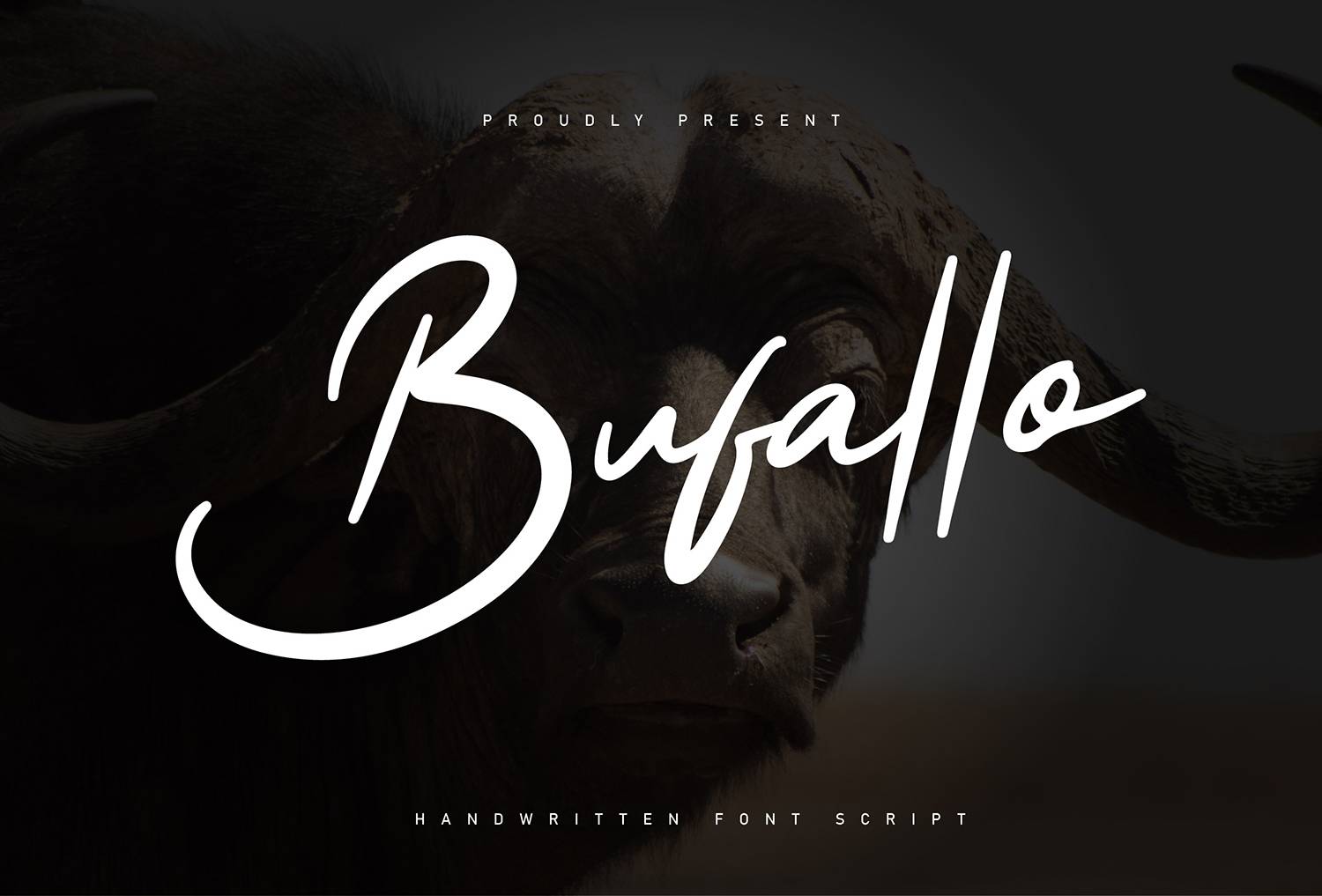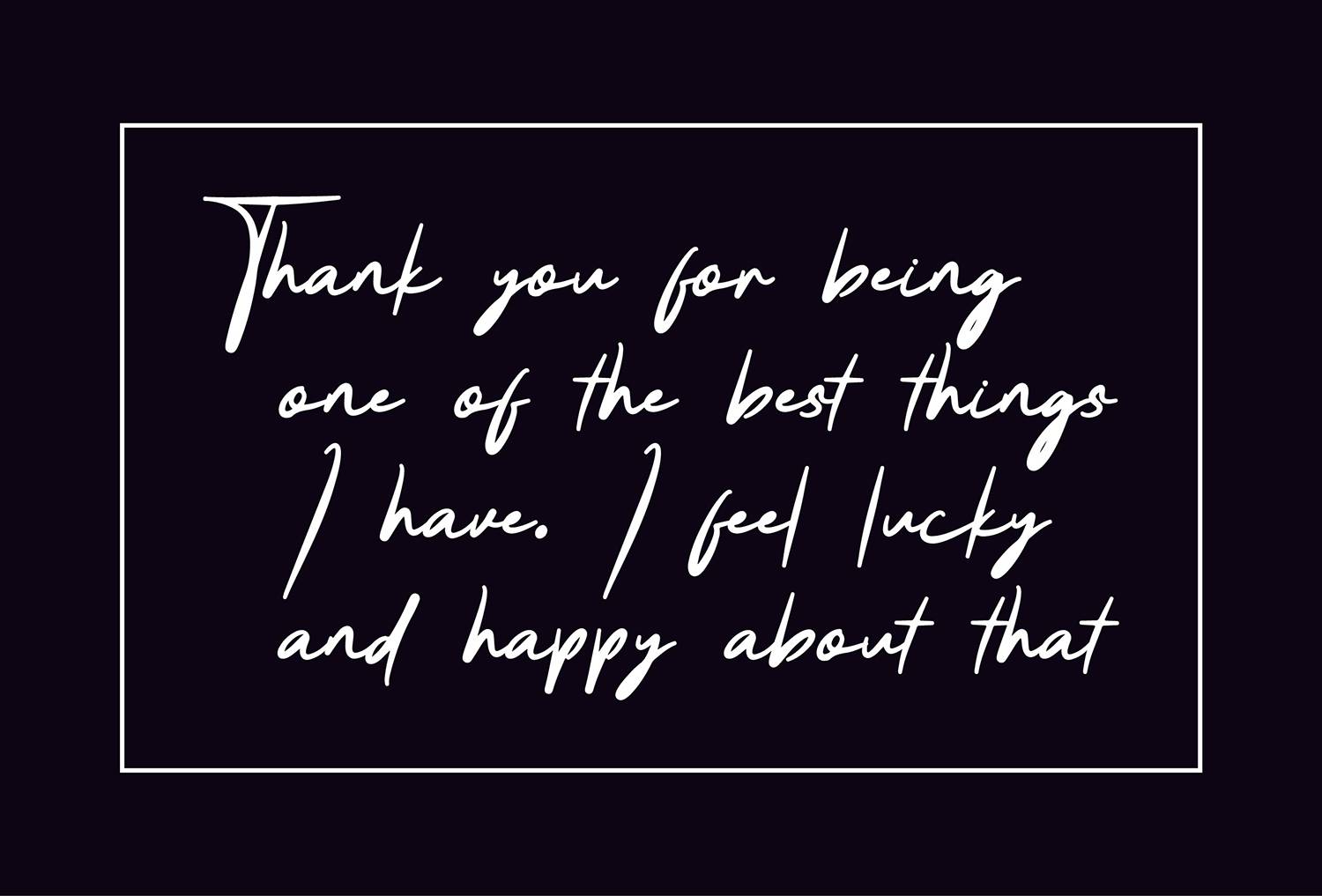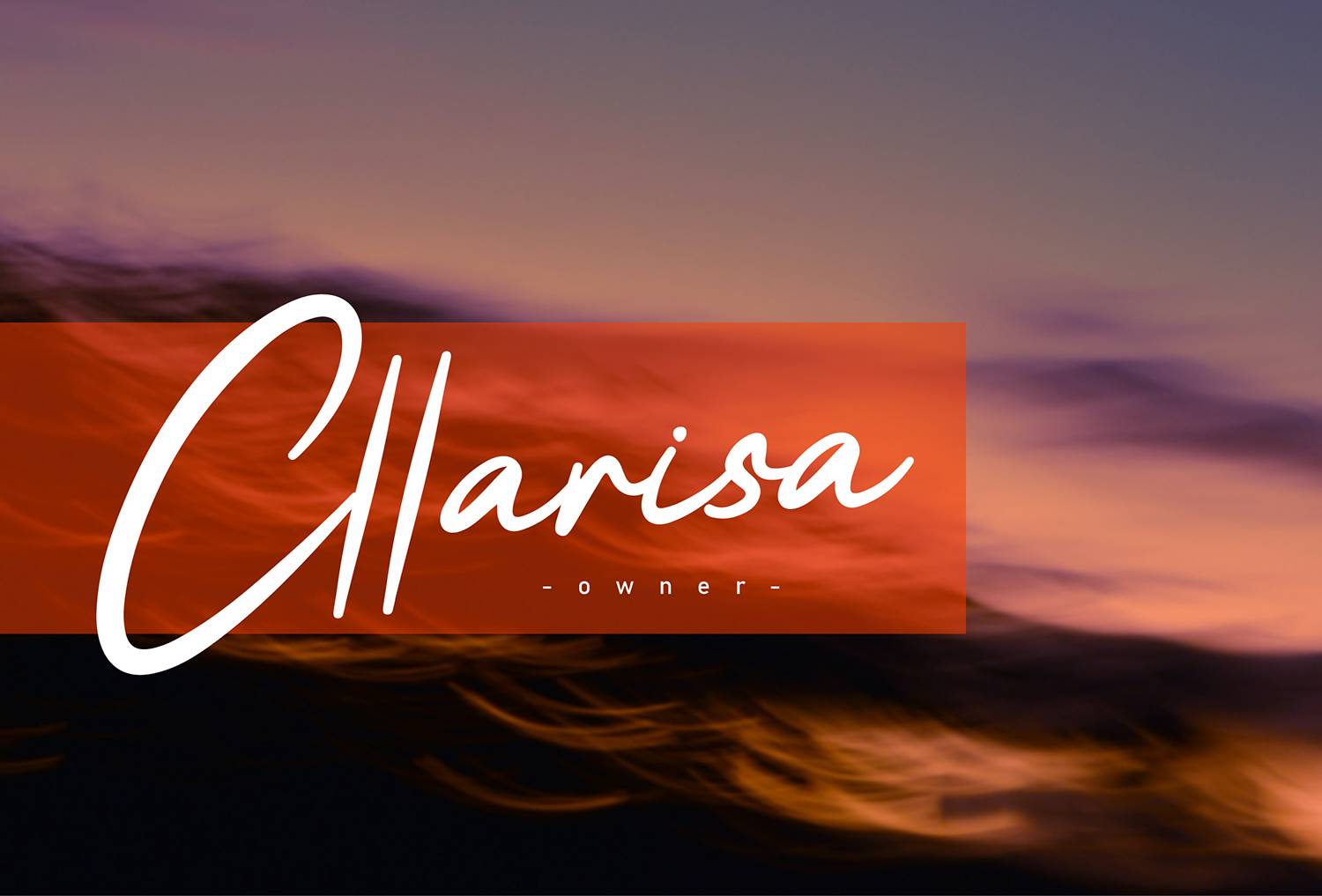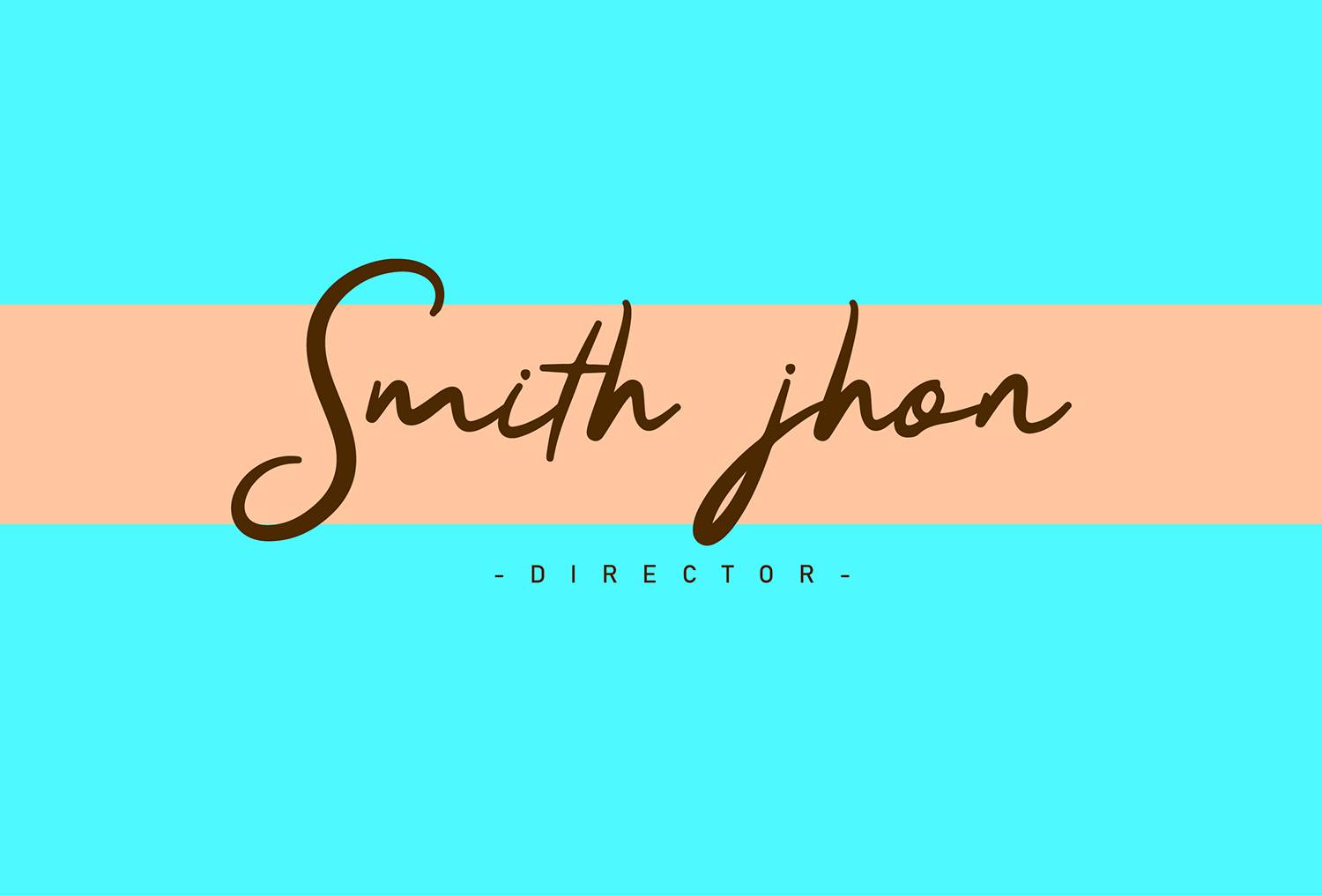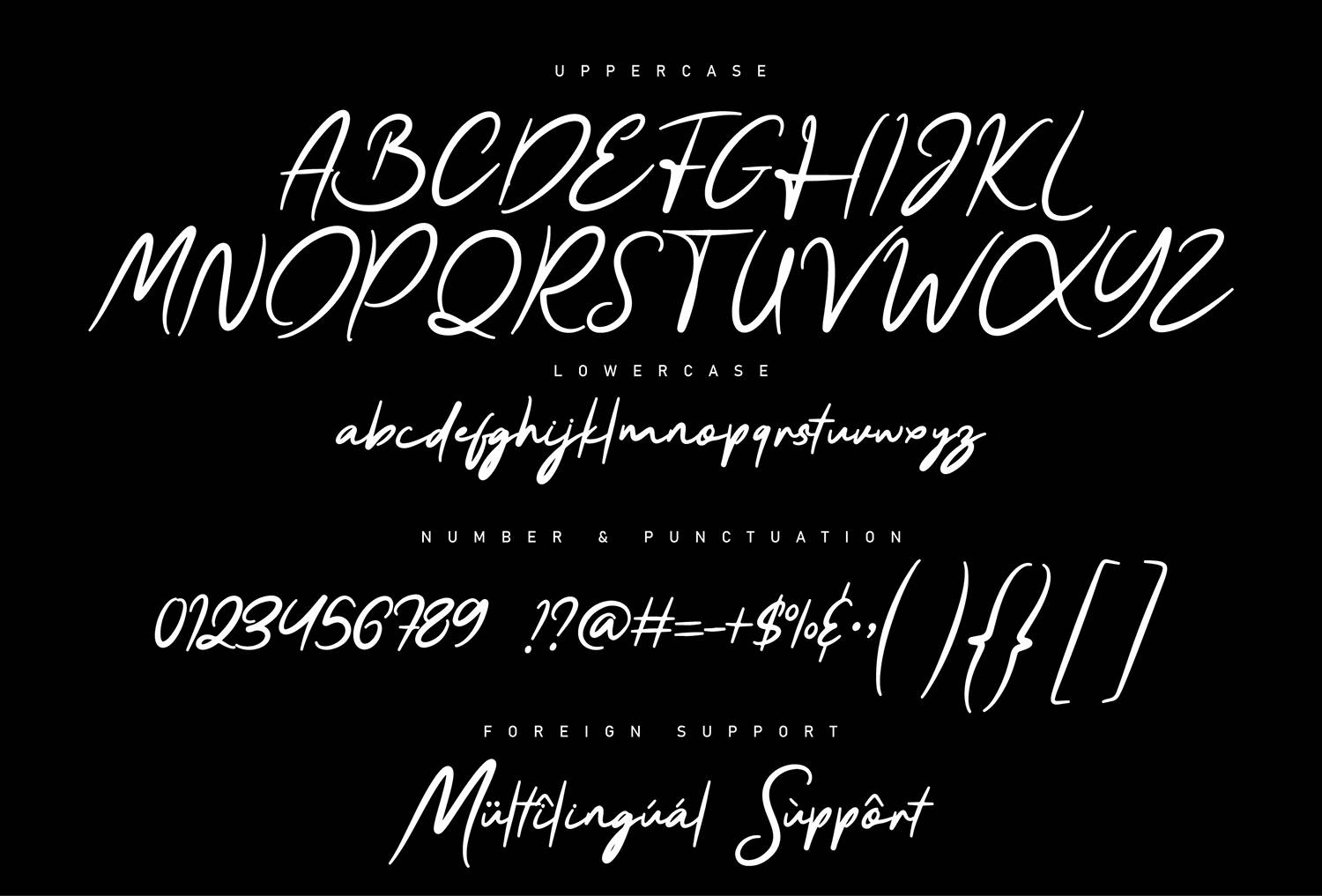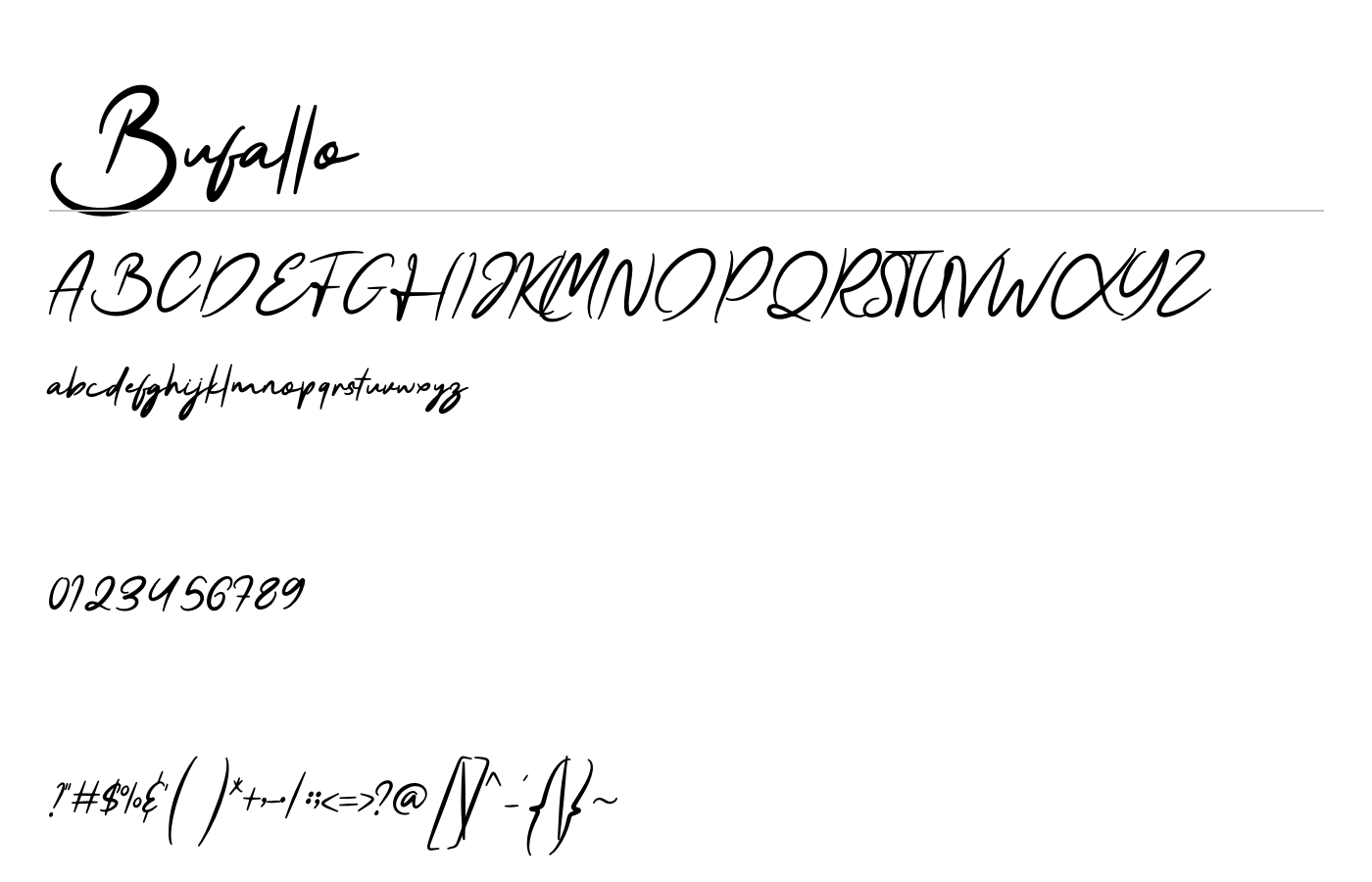
Bufallo Font is a delicate, handwritten script with a light and airy feel, featuring graceful, flowing letterforms that mimic natural handwriting. Its slender strokes and casual style make it perfect for adding a personal, elegant touch to invitations, branding, and creative projects where a warm, approachable vibe is desired. This font works well in headlines and logos, bringing charm and character to any design.
Bufallo Font
About Bufallo Font
| Font family | Bufallo Font |